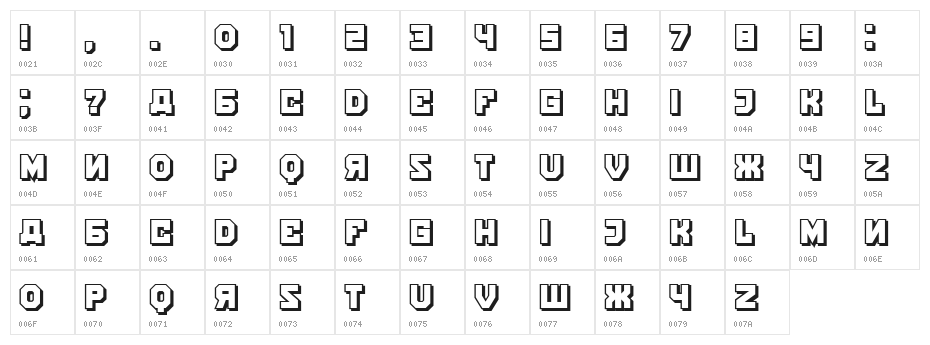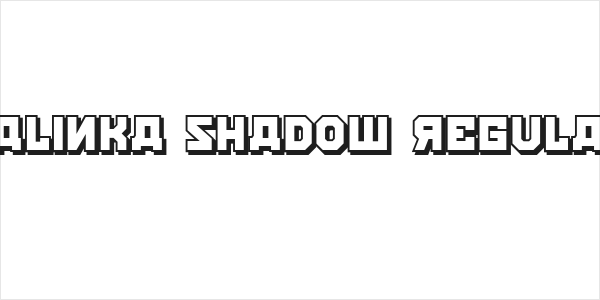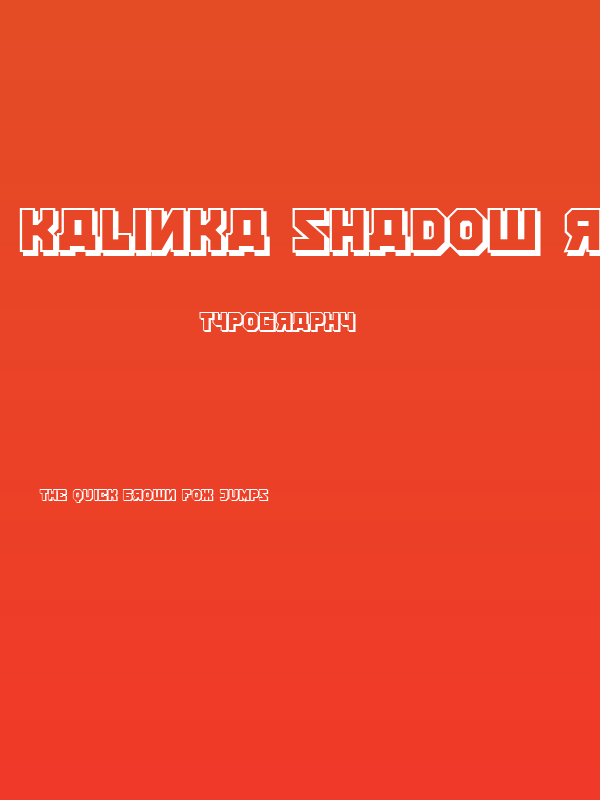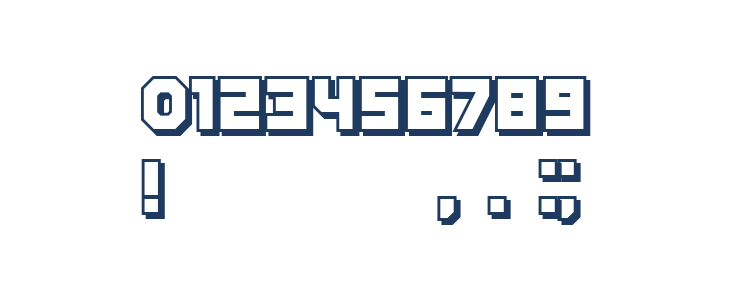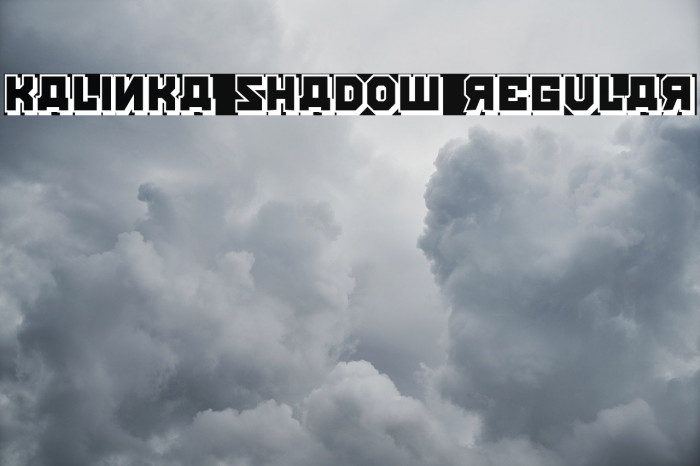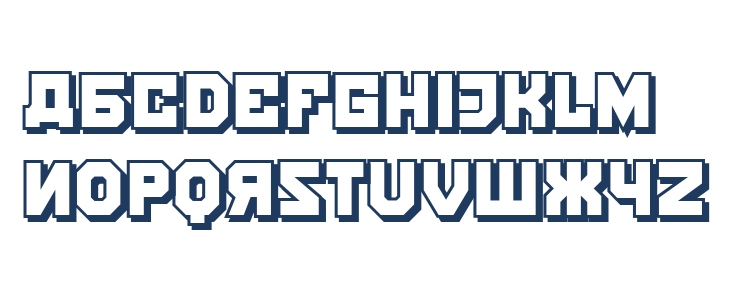
Kalinka Shadow Regular Font
Kalinka Shadow Regular Description
This font features a bold, geometric design with a distinct shadow effect that gives it a three-dimensional appearance. The characters are constructed with sharp, angular lines and a blocky structure, creating a strong visual impact. The shadow adds depth and a sense of movement, making it stand out in any design. The uppercase letters are uniform in height, while the numbers and special characters maintain the same bold style. The overall look is modern and dynamic, suitable for projects that require a striking and memorable typeface.